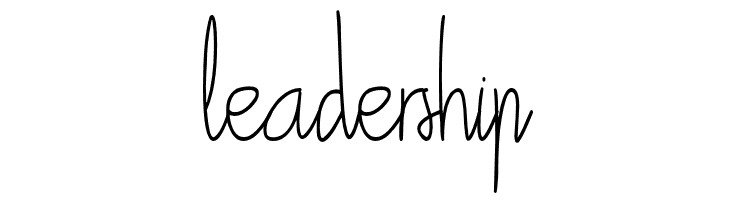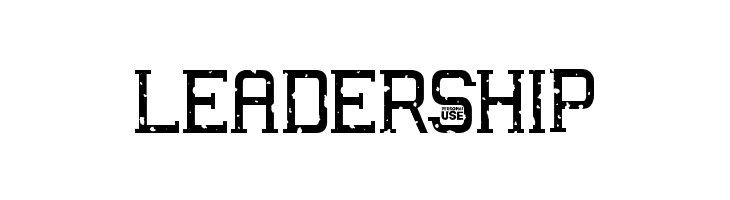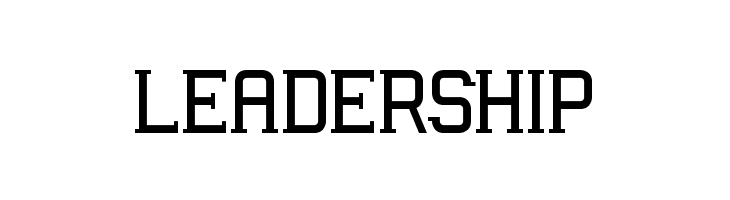
A bold, high-contrast serif font with a strong, authoritative presence.
A bold, italic serif font with a classic and authoritative style.
A bold serif font with classic elegance and strong readability.
A bold, italic serif font with a classic and elegant style.
A bold, classic serif font with strong vertical lines and pronounced serifs.
A refined serif font with thin, elegant strokes and subtle serifs.
An elegant, extra light serif font with an italic style.
An elegant serif font with a classic italic style, perfect for sophisticated designs.
A classic serif font with elegant, light strokes and refined serifs.
A light, italic serif font with elegant curves and refined serifs.
A classic serif font with medium weight and balanced readability.
Elegant serif font with medium weight and italic style.
A classic serif typeface with semi-bold weight and elegant serifs, perfect for refined readability.
A classic serif font with semi-bold weight and italic style, offering elegance and readability.
A thin, elegant serif font with refined strokes and a modern aesthetic.
A refined, thin serif font with an elegant italic style.
A classic serif font with modern elegance and medium contrast.
A playful, whimsical handwritten font with fluid, interconnected strokes.
A dynamic, expressive handwritten font with fluid, cursive letterforms.
A dynamic, cursive script font with bold, expressive strokes.
An elegant and flowing script font with artistic flourishes.
A bold, modern font with geometric shapes and clean lines.
A bold, grunge-style font with a distressed, textured appearance.
A bold, distressed font with a vintage, rugged texture.
A fluid, cursive script font with a handwritten style.
A dynamic, cursive script font with bold, fluid strokes and a natural handwriting style.
A playful, handwritten-style font with decorative elements and flowing letterforms.
A bold, geometric font with a 3D effect and enclosed in square frames.
A bold, brush-textured font with dynamic, jagged strokes.
Elegant handwritten script font.
A modern-vintage font with curved, elongated letterforms and art deco influences.